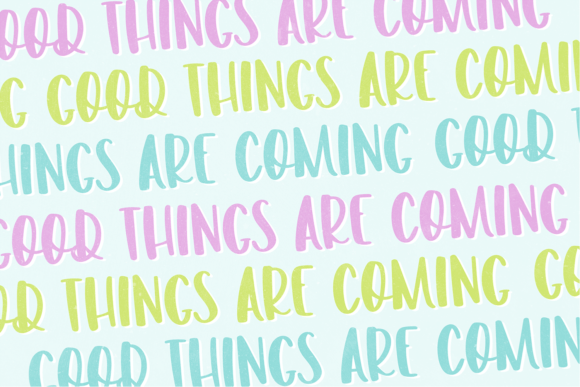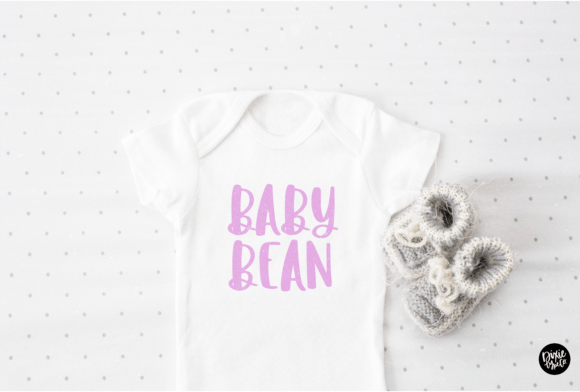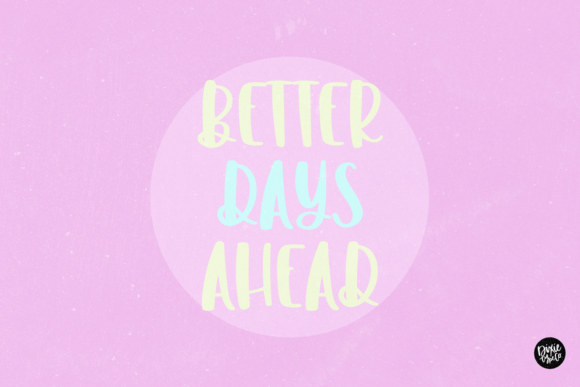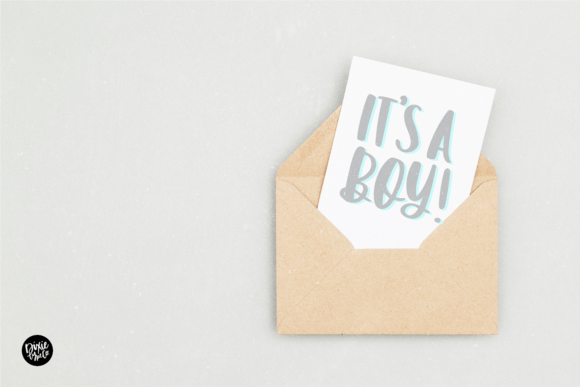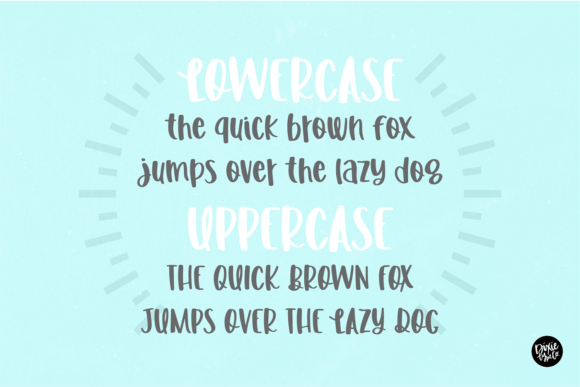
Discover the Timeless Charm of Bright Days Font
There’s something special about those moments when creativity strikes, and the world feels full of endless possibilities. You’re sitting at your desk, staring at a blank page or screen, and suddenly, a spark of inspiration hits you. The ideas start flowing, and before you know it, you’re lost in a world of imagination and possibility.
For designers, finding the perfect font can be the key to unlocking that creative magic. Enter Bright Days Font, a flowing handwritten font that adds an elegant touch to any project. Whether you’re designing a wedding invitation, a marketing campaign, or a personal blog, Bright Days Font is the perfect choice to make your designs stand out.
With its distinct and timeless style, Bright Days Font is a valuable addition to any designer’s toolkit. Its versatility and charm make it perfect for a wide range of projects, and its beauty is sure to captivate your audience.
Bright Days Font Key Features
- Unique Characteristics: The font features a unique blend of modern and vintage elements, with a distinctive flair that adds a touch of elegance to any design.
Bright Days Font Review
Overall, I think the Bright Days Font has a lot of potential, but it also has some areas that need improvement. Let’s dive in!
- The font’s unique, hand-drawn feel is quite charming and adds a touch of personality to any design project.
- The font is highly legible, making it suitable for a wide range of applications, from body text to headings.
- The font’s bold weights are particularly well-done, adding a nice level of contrast to the design.
- The font’s italic and bold italic weights could be more refined, as they sometimes appear a bit uneven.
- The font’s capital letters can sometimes appear a bit too tall, disrupting the overall balance of the text.
- The font’s OpenType features are limited, which may make it less versatile for designers who rely heavily on advanced typographic techniques.
Overall, I think the Bright Days Font is a solid choice for designers looking for a unique, hand-drawn feel. While it has some limitations, its strengths make it a great option for many projects. With some refinement and additional features, it could truly shine.
For best results, use the font in headings and titles to add visual interest.
Use the “Bright Days Font” in combination with bright and cheerful colors to create a lively atmosphere.